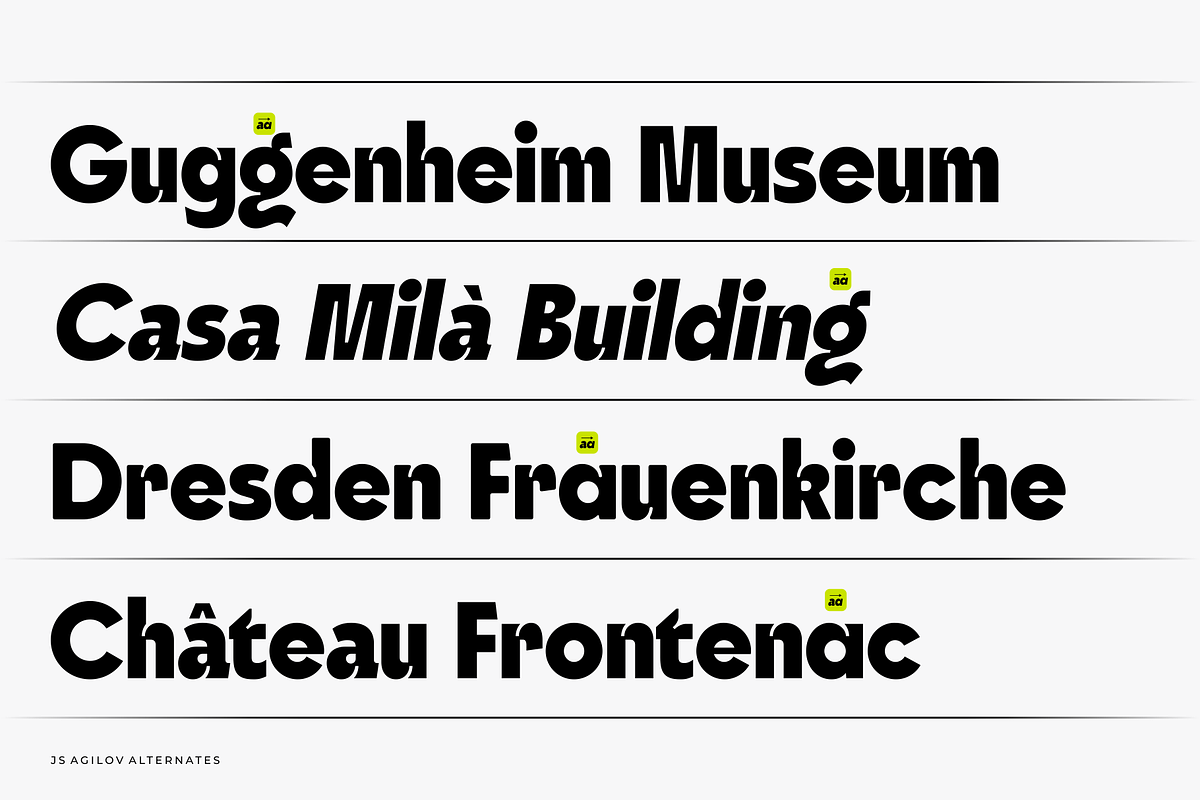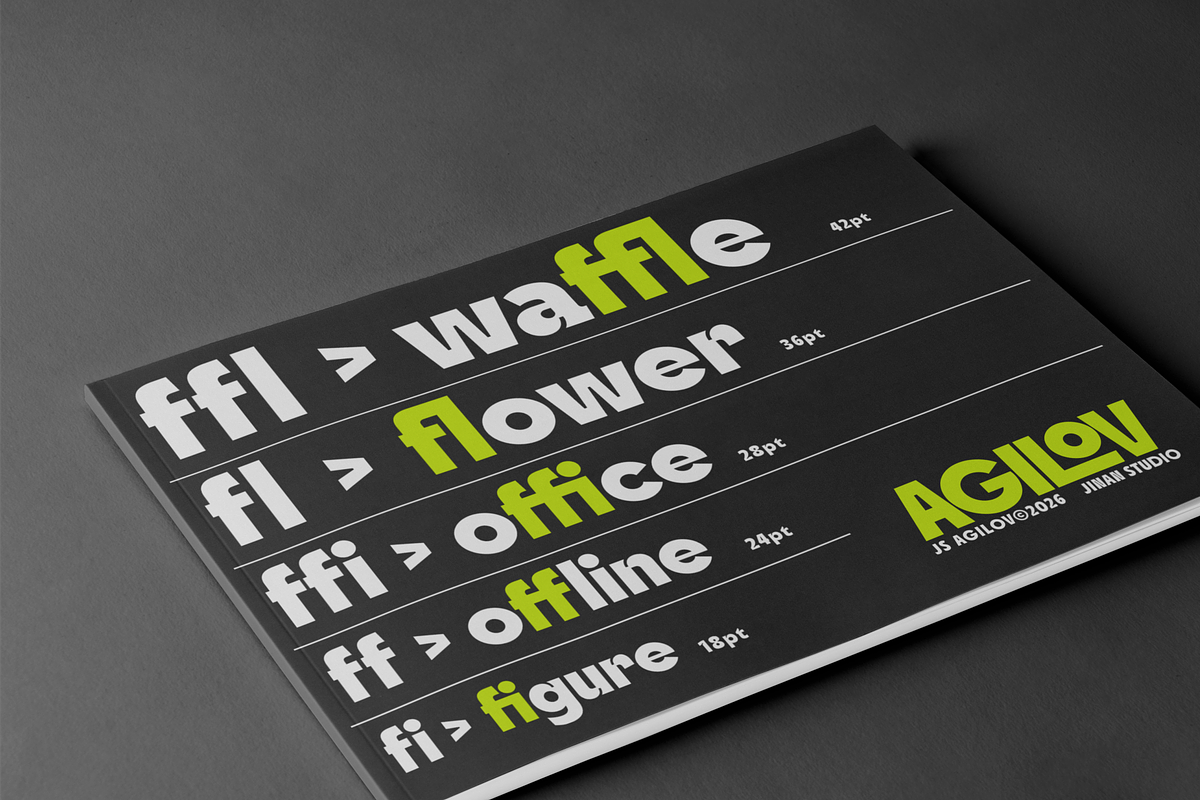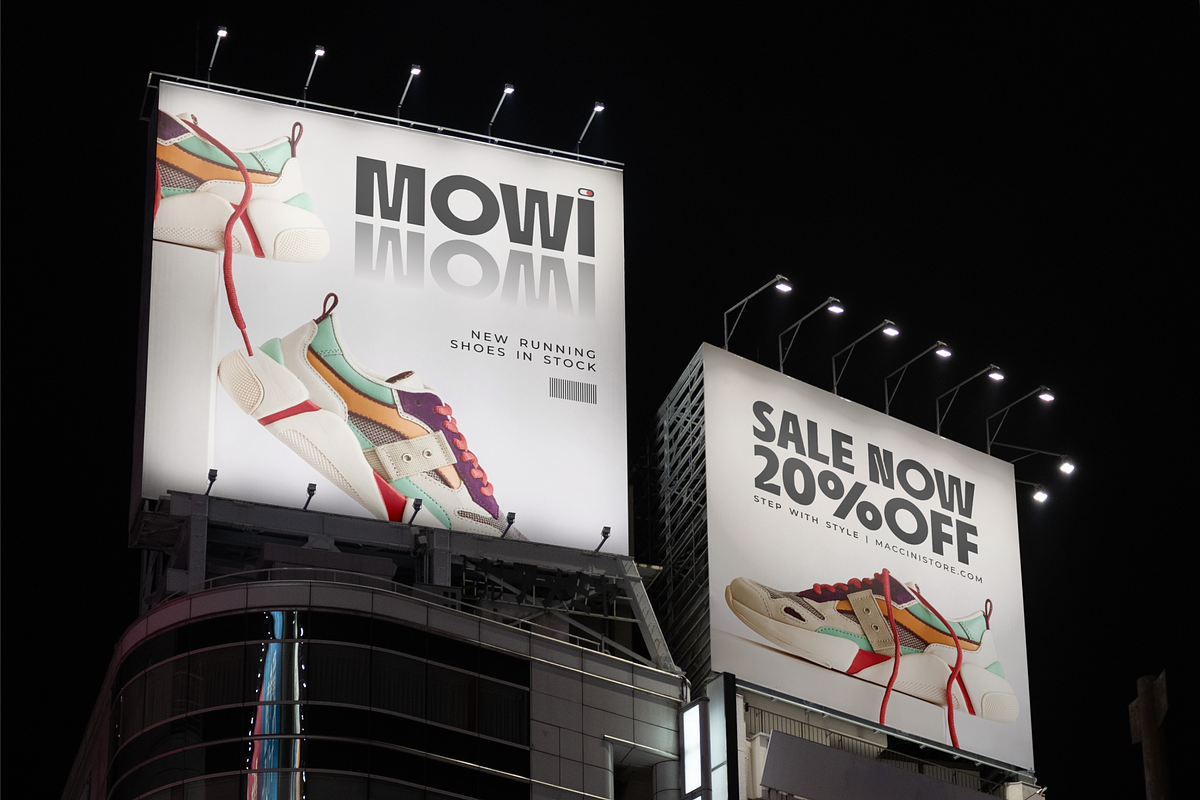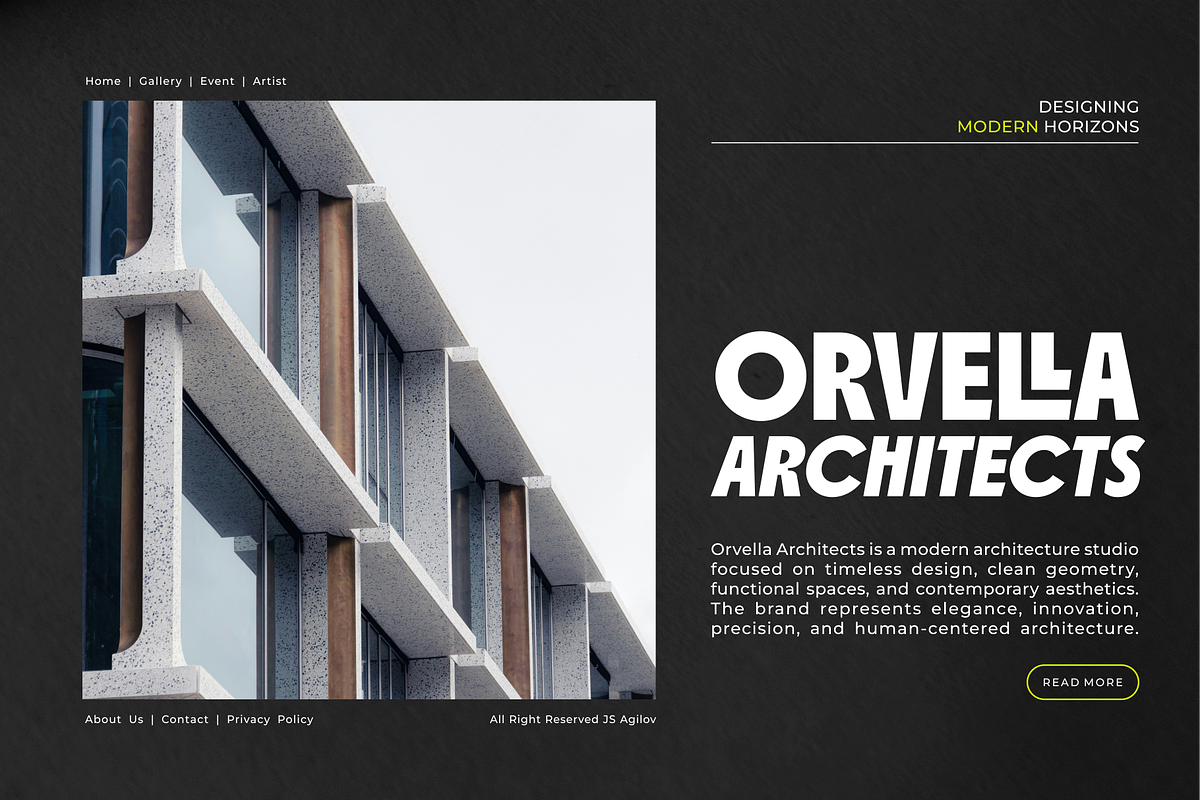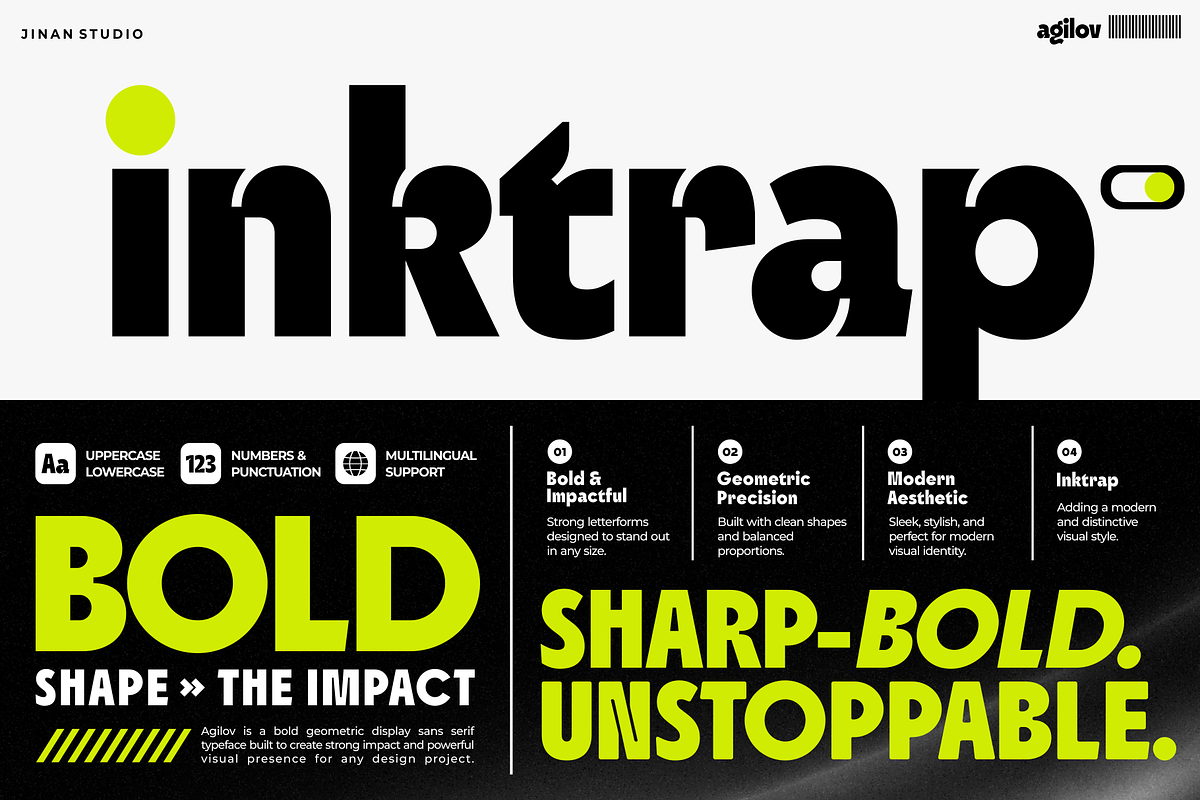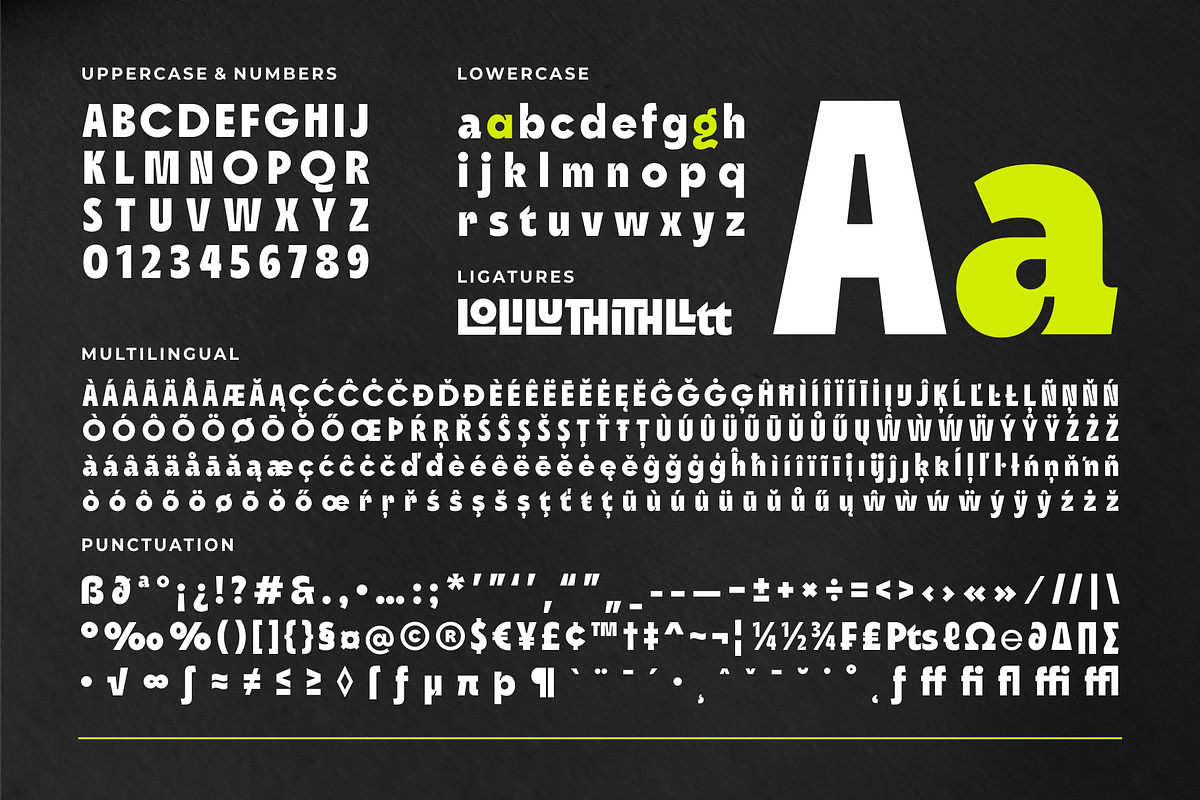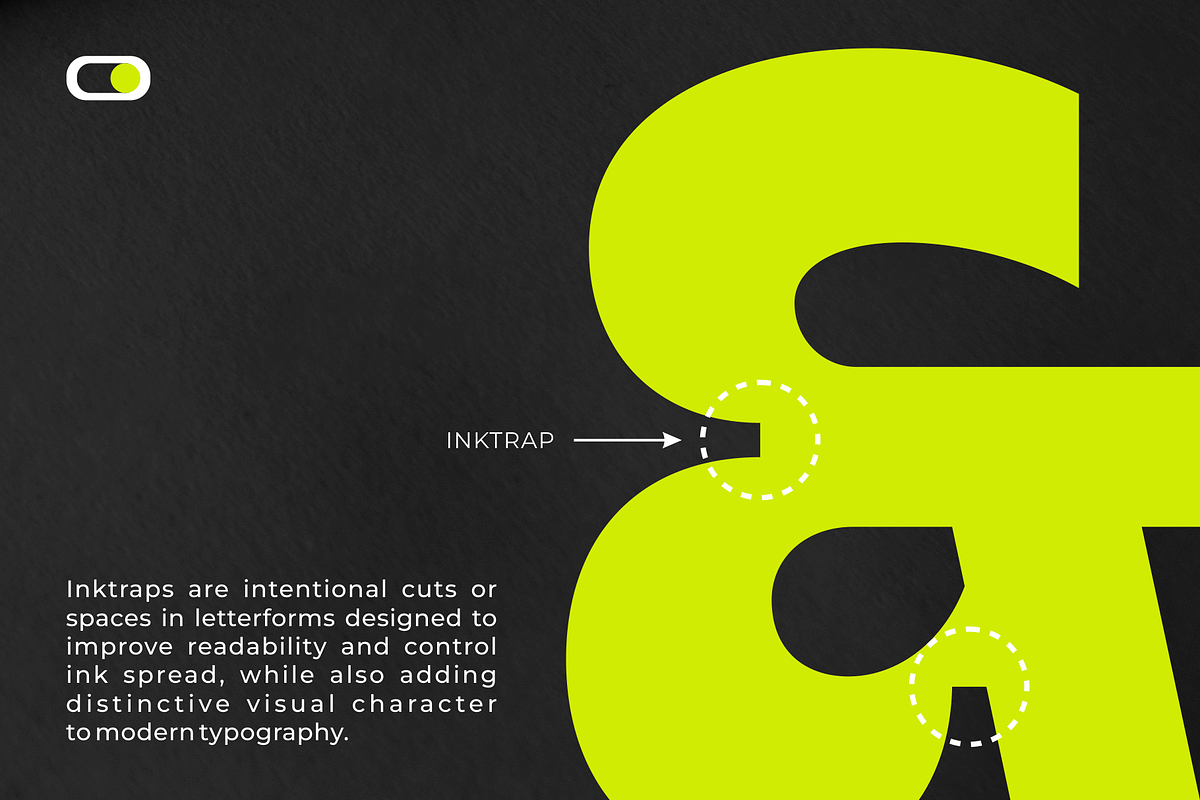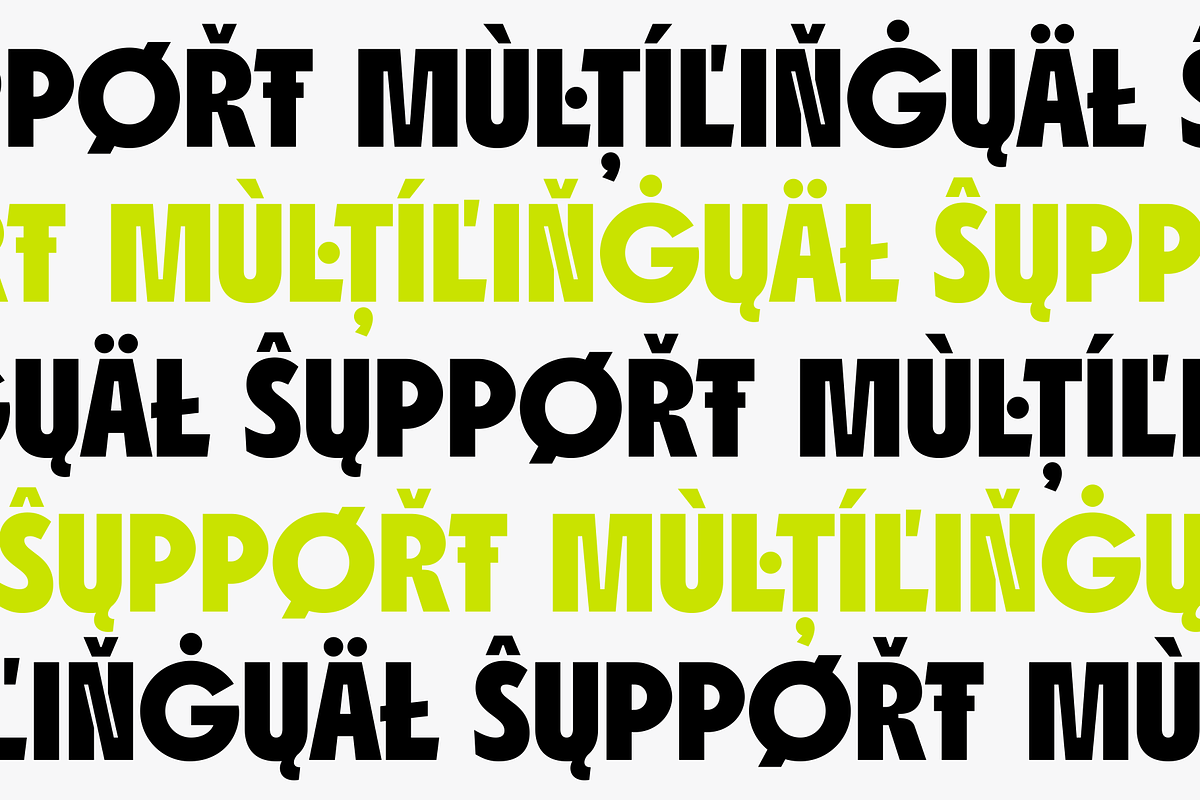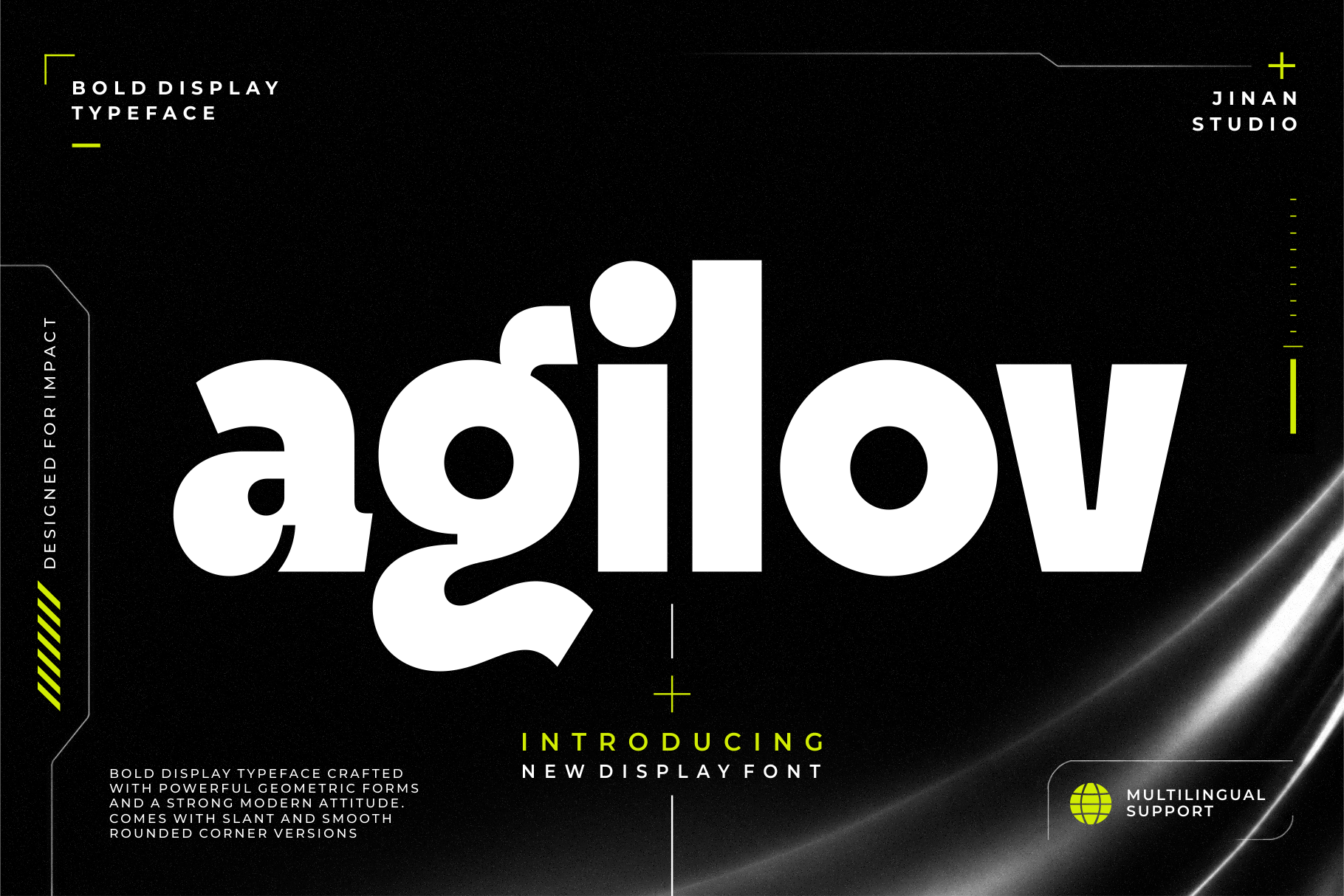
Agilov - A Bold Display Font
Agilov is a bold modern display font that combines strong geometric construction with smooth organic curves to create a distinctive and expressive visual style. Designed with powerful proportions and unique character shapes, this typeface delivers a fresh contemporary appearance that feels both futuristic and artistic at the same time.
Its striking letterforms bring a strong visual rhythm, making Agilov perfect for branding, posters, editorials, album covers, gaming graphics, packaging, social media content, and modern advertising. The combination of clean structure and playful details gives the font a dynamic personality that instantly captures attention while maintaining readability.
Agilov is crafted for designers who want typography that feels confident, modern, and memorable. Whether used in large headlines or creative visual layouts, this font adds a bold statement with a sleek urban aesthetic and experimental modern touch. It also comes with Slant and Round versions, giving you more flexibility to create dynamic, soft, futuristic, or energetic typography styles across various creative projects.
Uppercase & Lowercase Characters
Alternate Characters
Slant Version
Round Version